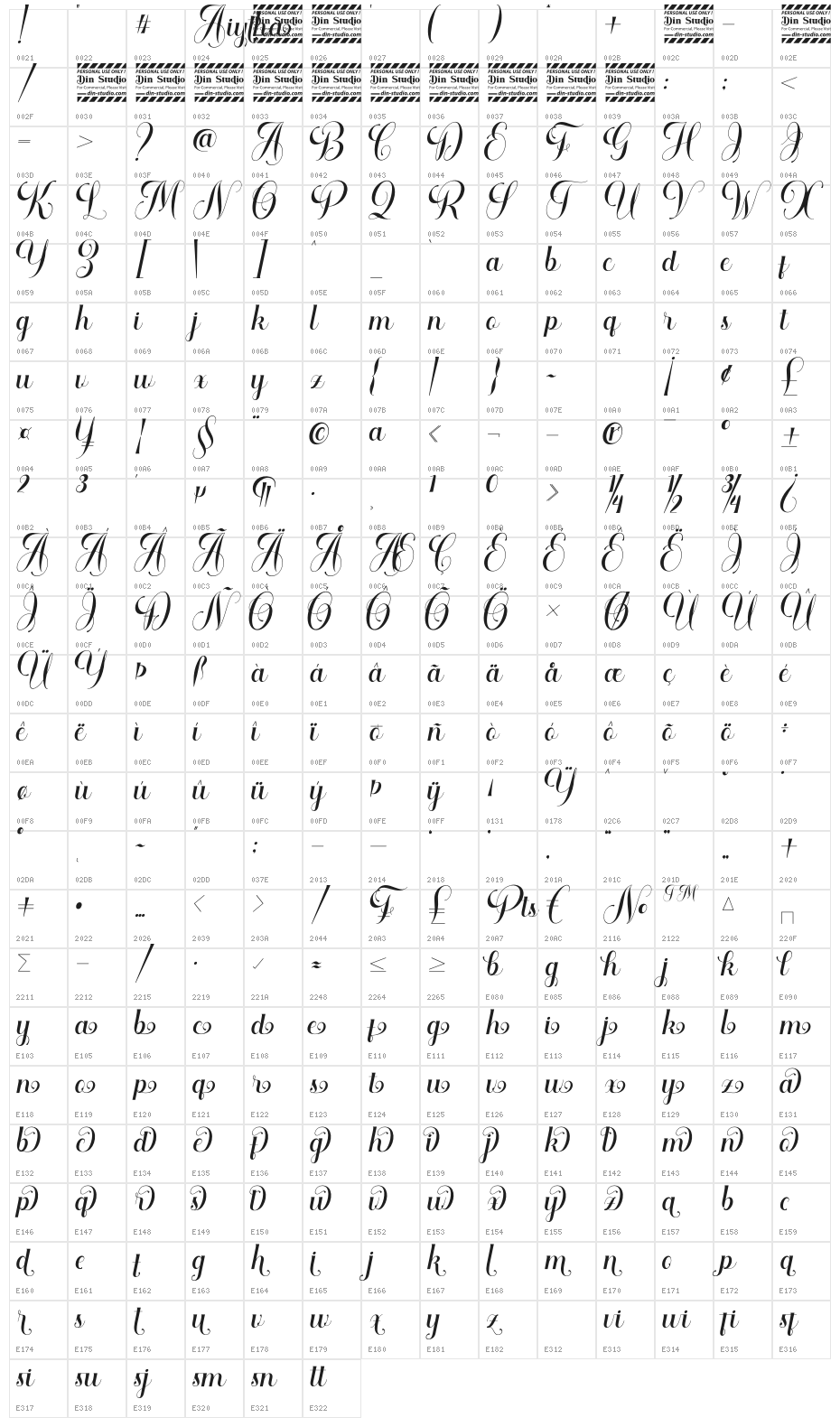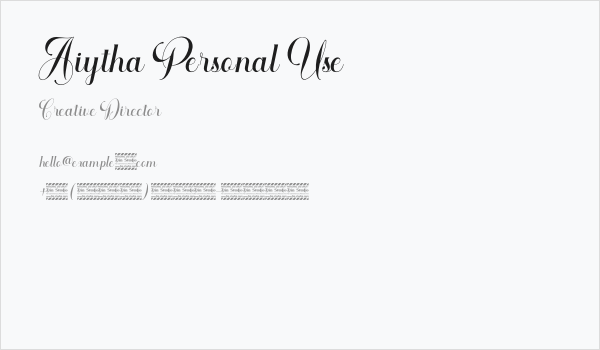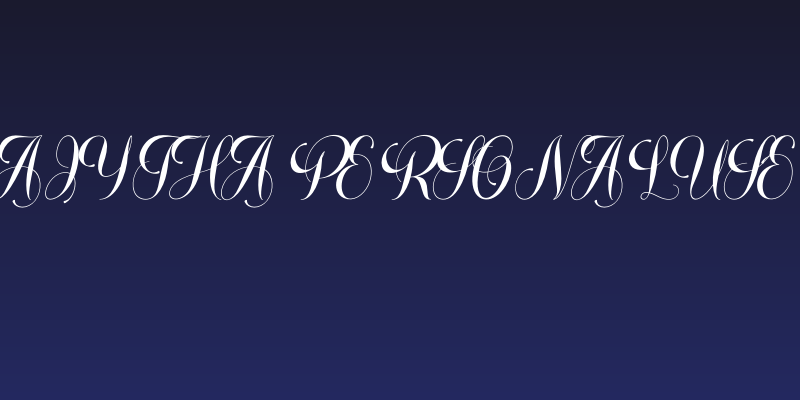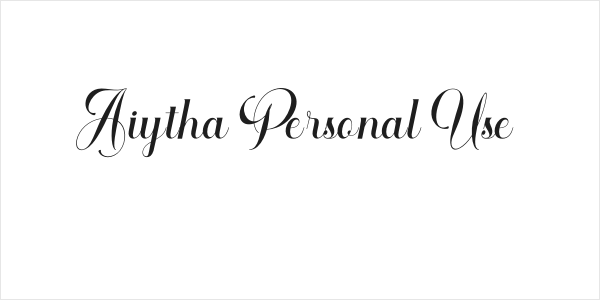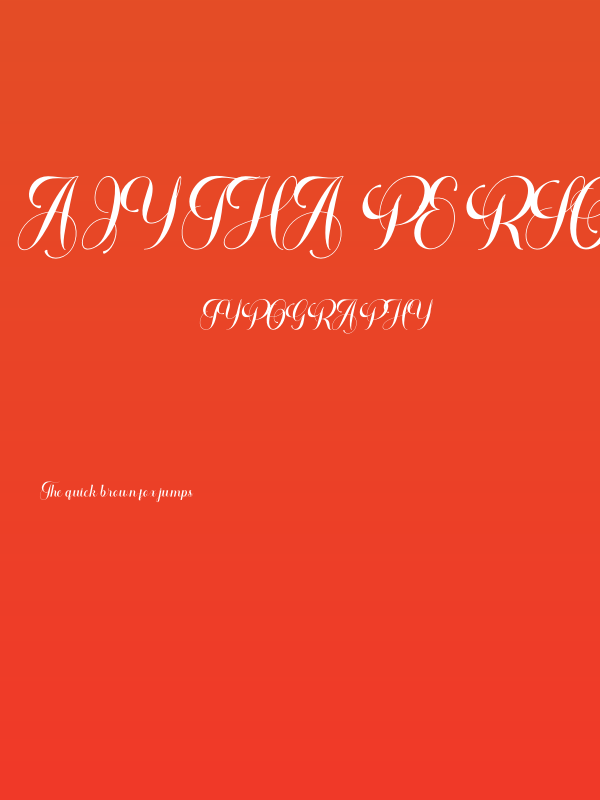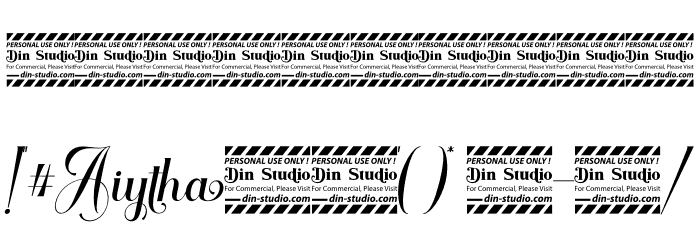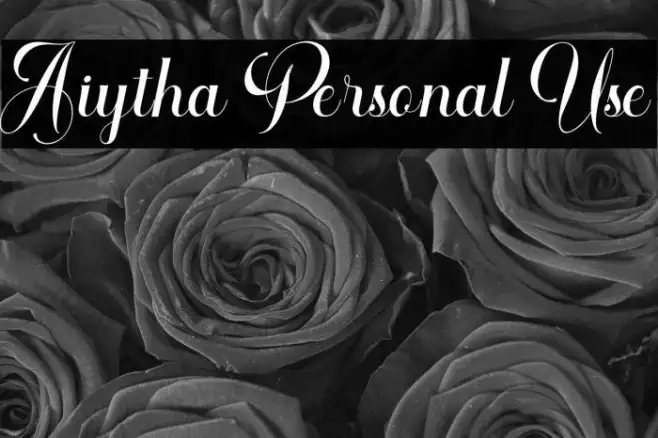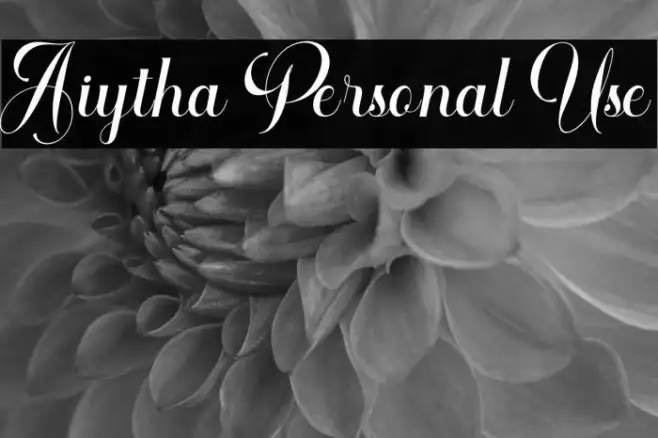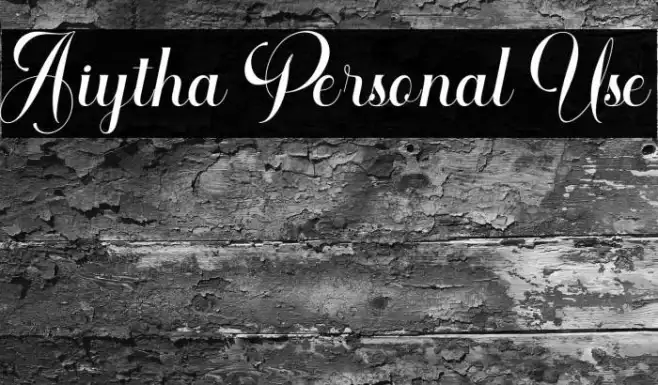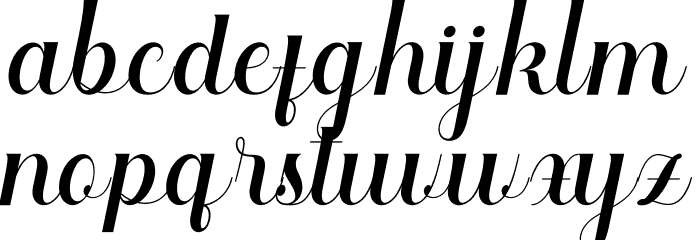
Aiytha Personal Use Font
Aiytha Personal Use Description
This font features an elegant and flowing script style with a modern twist. The uppercase letters are characterized by their intricate loops and swirls, giving a sense of sophistication and grace. The lowercase letters maintain a consistent flow, with a slight slant that enhances the cursive appearance. The numerals and special characters are designed to complement the overall aesthetic, ensuring a cohesive look across all text. The font's delicate strokes and high contrast between thick and thin lines add to its refined and stylish appearance, making it ideal for formal and decorative uses.
| Use Case | Headlines, Invitations, Logos |
| Proposed Projects | Ideal for wedding invitations, elegant branding, luxury packaging, and decorative headings. |